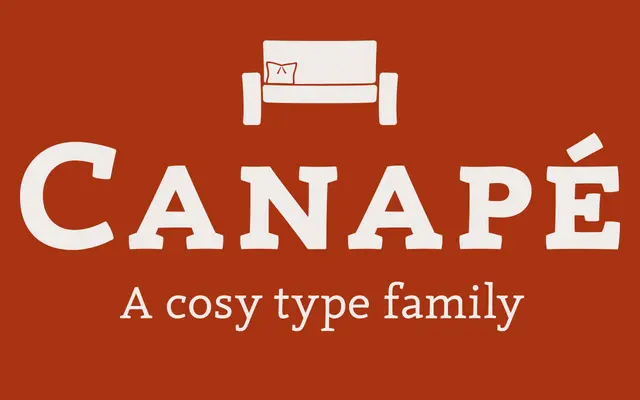
Canapé
FDI Type Foundry · Sebastian Nagel · 2013
A subtly modulated serif by Sebastian Nagel, designed from 2006 and refined over seven years before its 2013 release, with a warm and tactile character suited to both text and display settings.
The design is built around a gently curved, slightly modulated stroke that gives the typeface an almost haptic quality, making it feel approachable without losing typographic rigour. Four styles cover Regular, Italic, Bold and Bold Italic, with the italics carrying an additional set of swash alternates for display use. OpenType features are unusually thorough, including ten figure sets, small capitals, discretionary ligatures, historical forms, automated fractions and a small sofa-building pictogram kit.
FDI classify it as serif; the subtly curved, slightly modulated stroke and warm proportions place it in the transitional serif tradition, though with a humanist warmth that suits both text and display use.